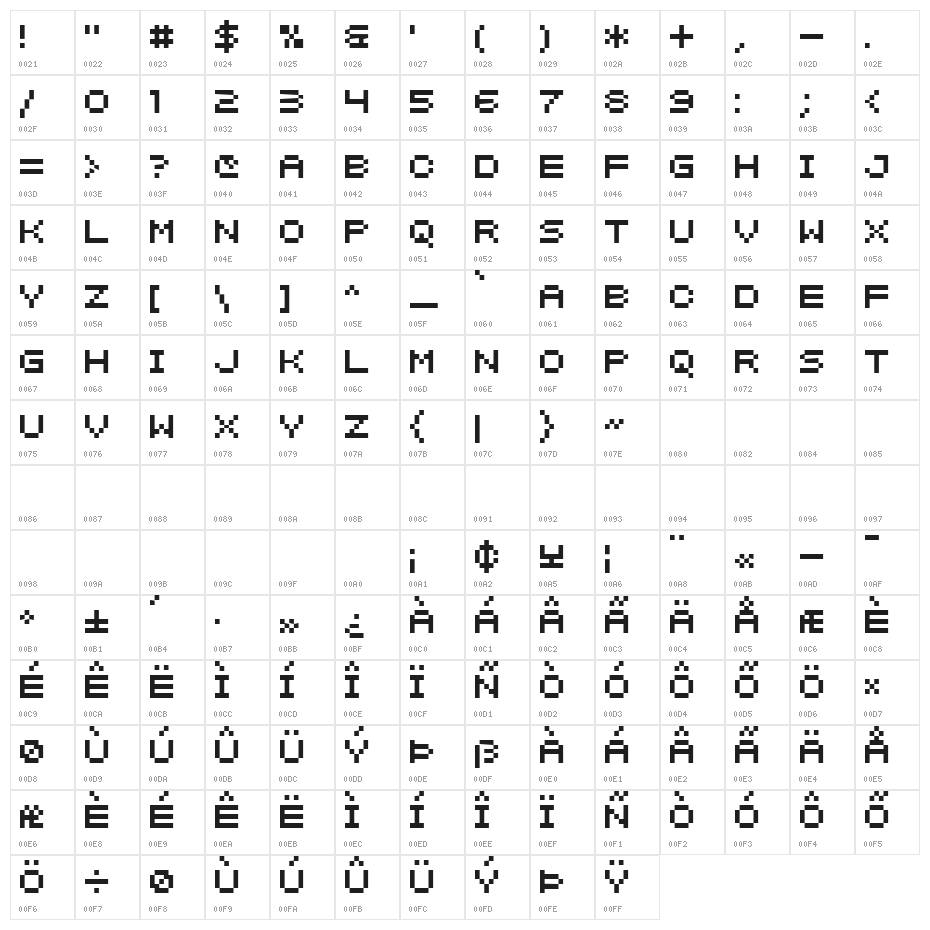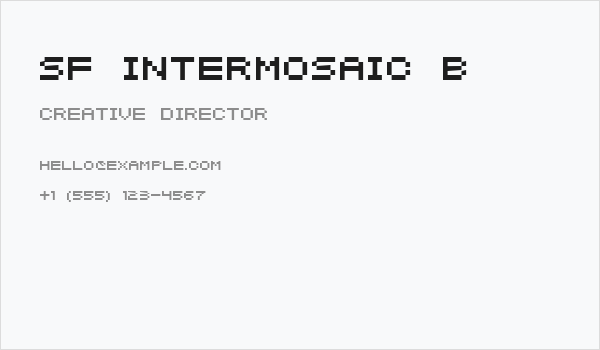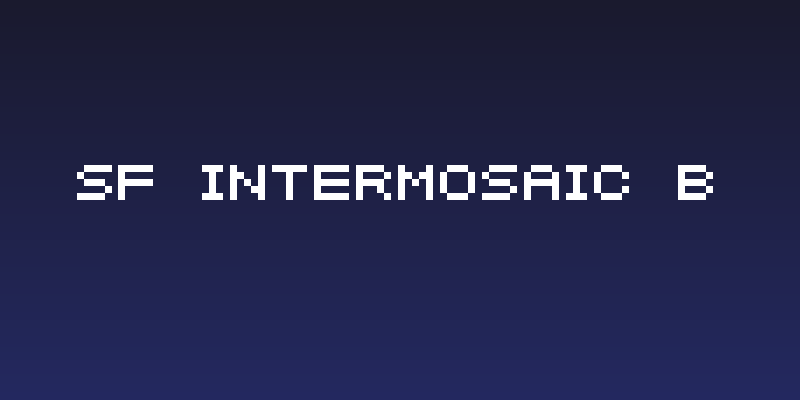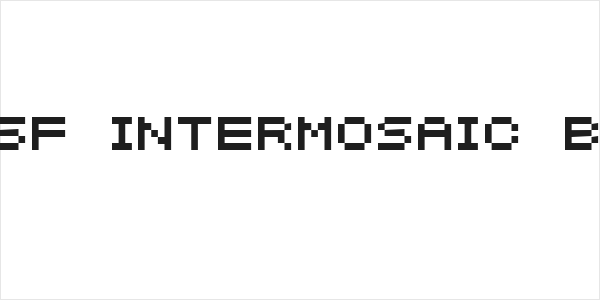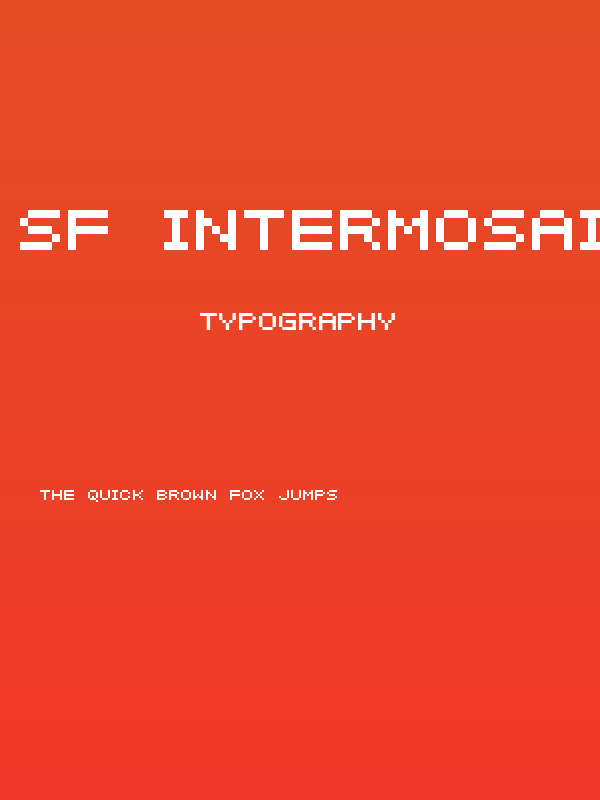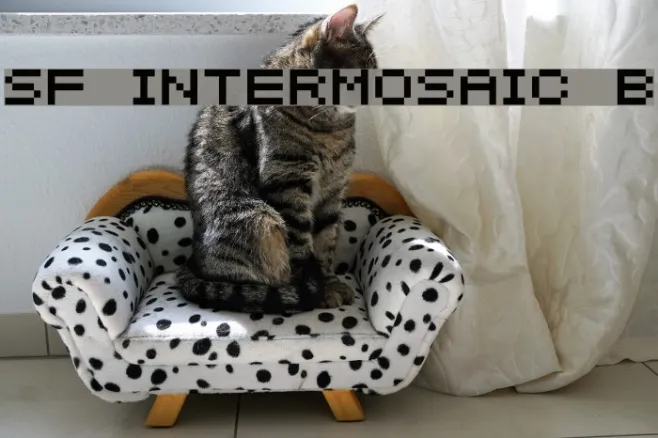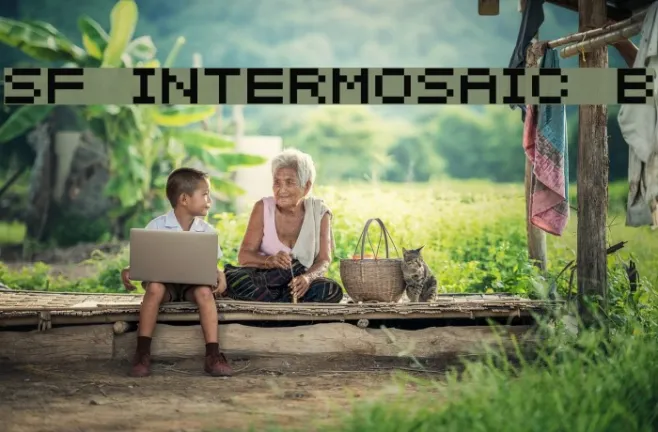
SF Intermosaic B Font
SF Intermosaic B Description
This font features a bold, pixelated design reminiscent of classic video game graphics. Each character is constructed with a grid-like precision, giving it a distinctly digital and retro aesthetic. The uppercase and lowercase letters maintain uniformity in width, creating a cohesive and structured appearance. Numbers and special characters follow the same pixelated style, ensuring consistency across all elements. The font's blocky nature makes it highly legible at various sizes, ideal for projects that require a nostalgic or tech-inspired look.
| Proposed Projects | Ideal for video game graphics, retro-themed designs, digital art, and tech-inspired branding. |